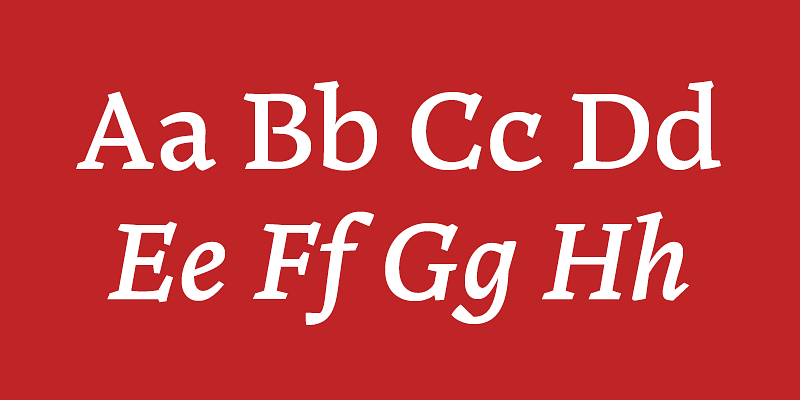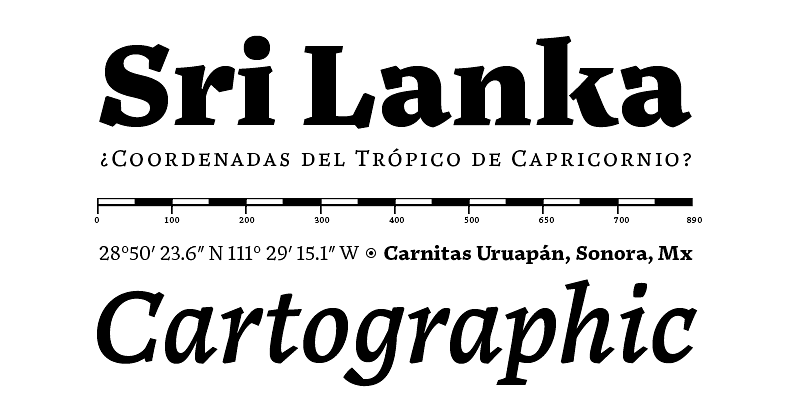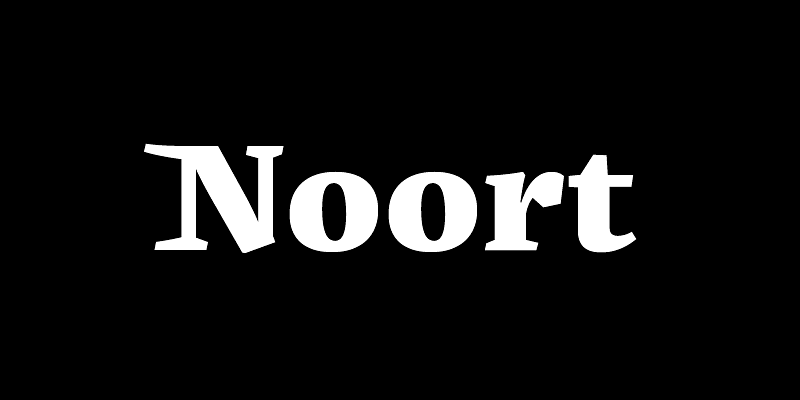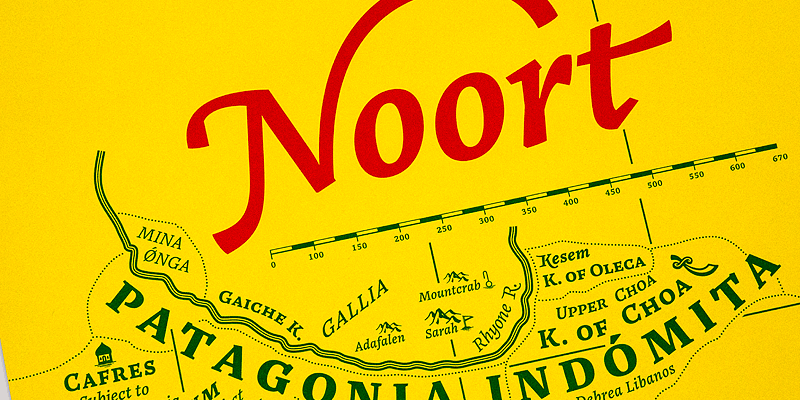
A functional and fascinating serif with a look that withstands complexity of information and style. Juan Bruce’s Noort is not a type family for wayfinding or mapmaking alone, but for clarifying information and engaging readers along their own journey.